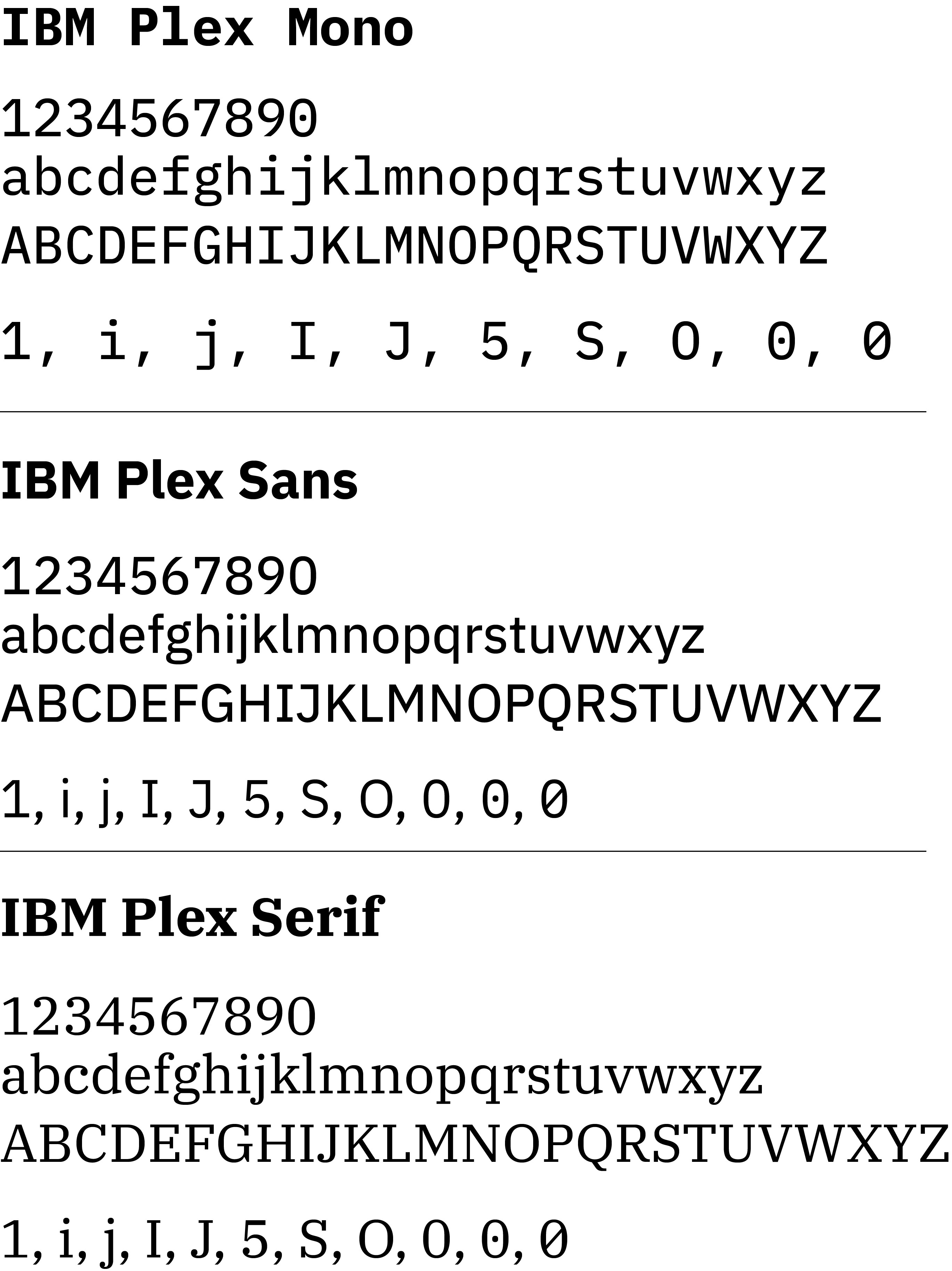
Windows Slashed Zero Fonts. Slashed zero is an opentype alternate (although in many programmers fonts it's drawn slashed by default). Over the years many people have created these various slashed zero fonts referred to zero fonts, windows slashed zero fonts, or slashed zero.
1 on the codeproject list of best programming fonts. Except that it really needs a slashed 0 (zero) and distinct 1 (one) vs l (letter l). The slashed zero glyph is often used to distinguish the digit zero.
I tried a bunch of slashed zero fonts, some weren't horrible, but i didn't really like any of them. This font is called the “symbol” font. Send us the fonts you wish to add a slashed zero.
Most Fonst The Zero And O Are Hard For Me Tell Apart.
Find and click the slashed zero symbol. I need a default monitor font with a slashed zero but all font maps only show abc. The second line used slashed zero.
A Standard Windows Font, No Slashed Zero (The Zero Is Somewhat Narrower And Taller Than The Uppercase O).
They Are Consolas, Inconsolata, Roboto Mono, And Share Tech Mono Fonts.